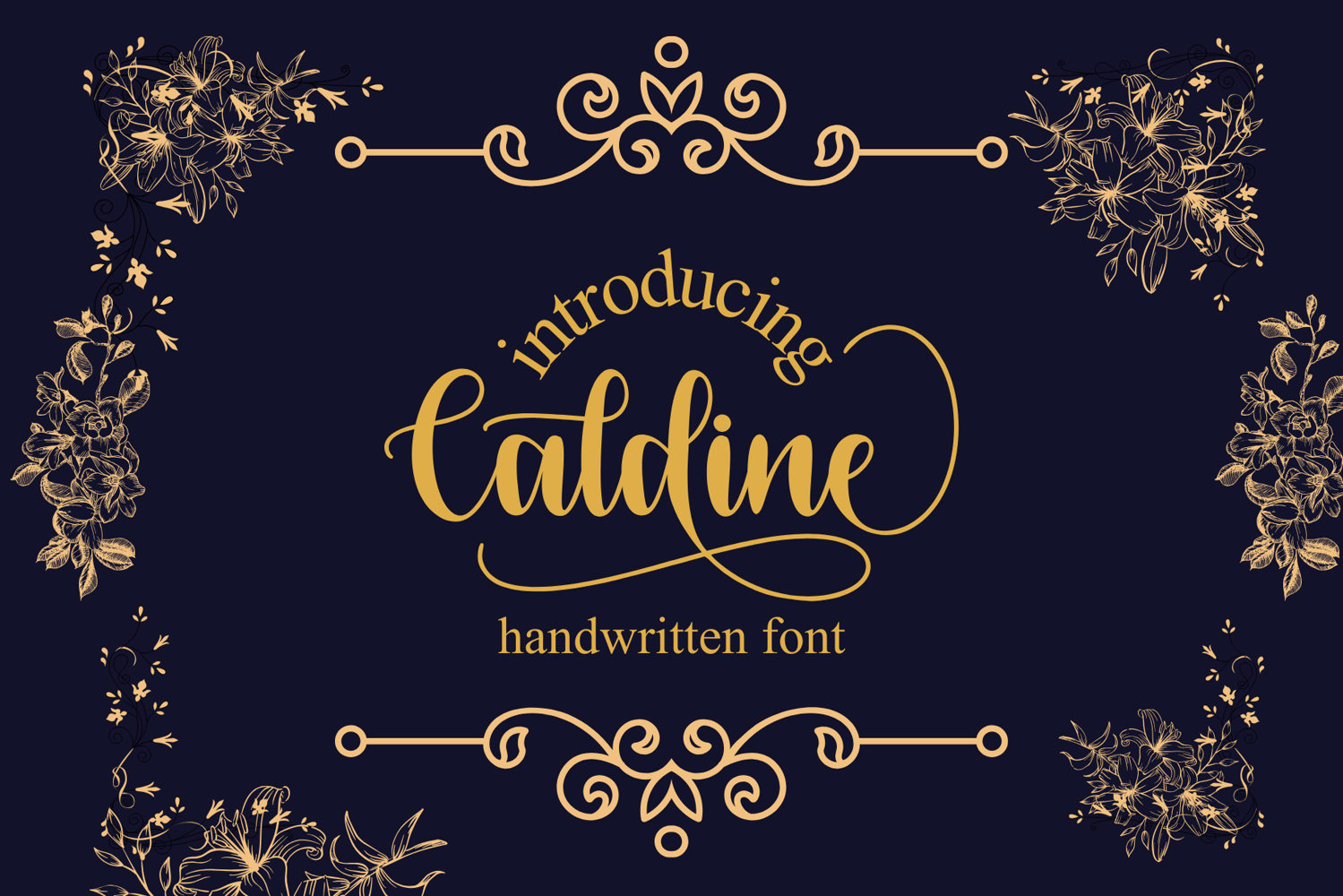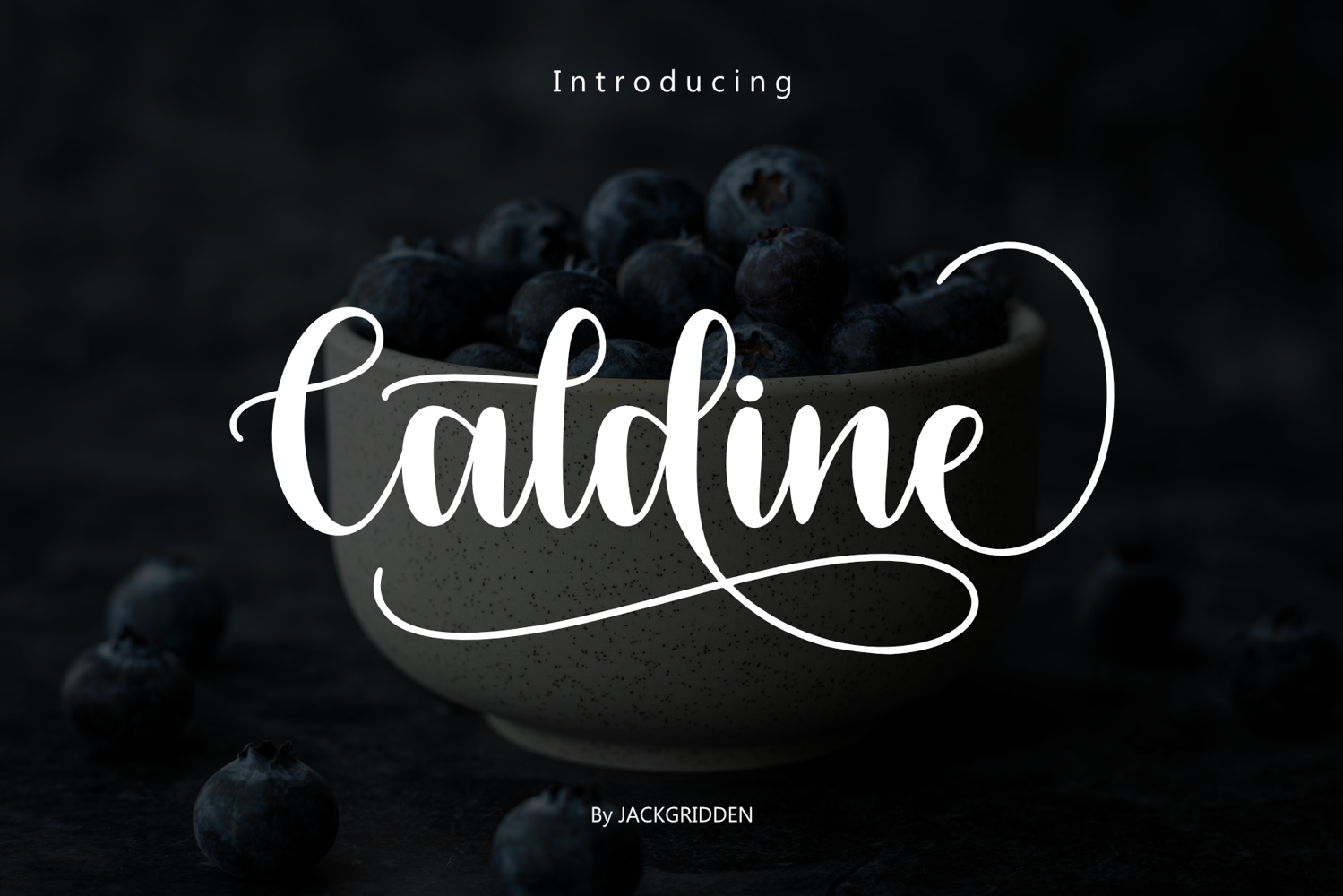
Caldine
Caldine Font is a premium script font with elegant and sophisticated style. Its intricate swirls and flourishes add a touch of luxury to any design. Perfect for branding, invitations, and other high-end projects.
Caldine